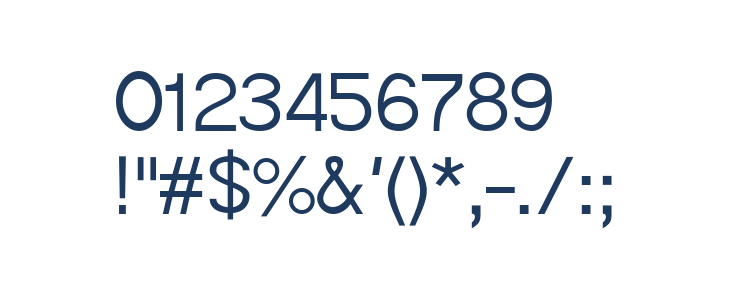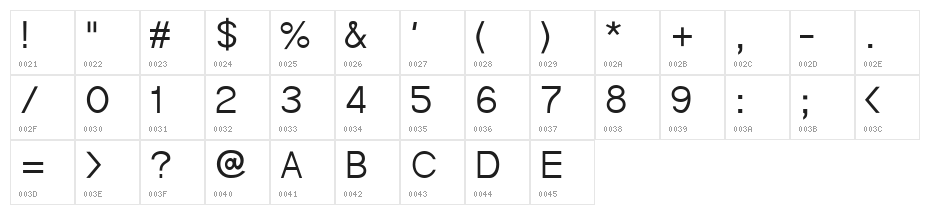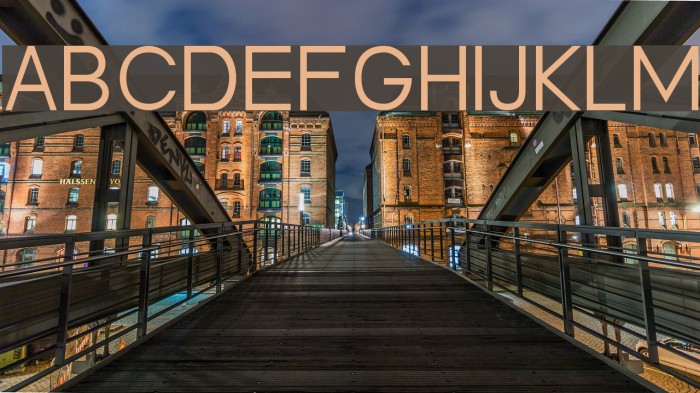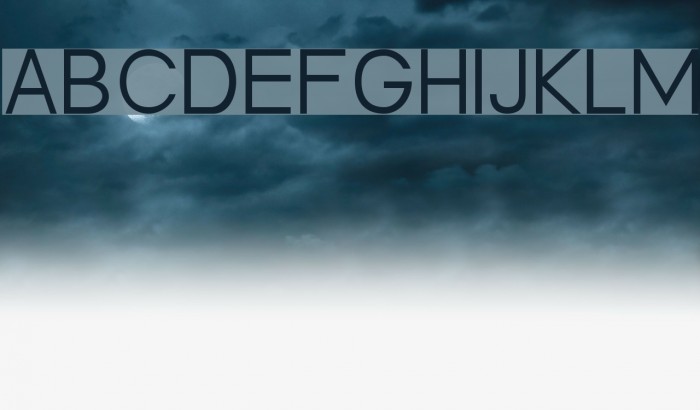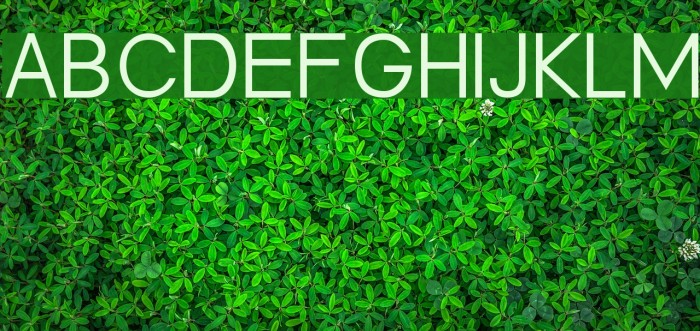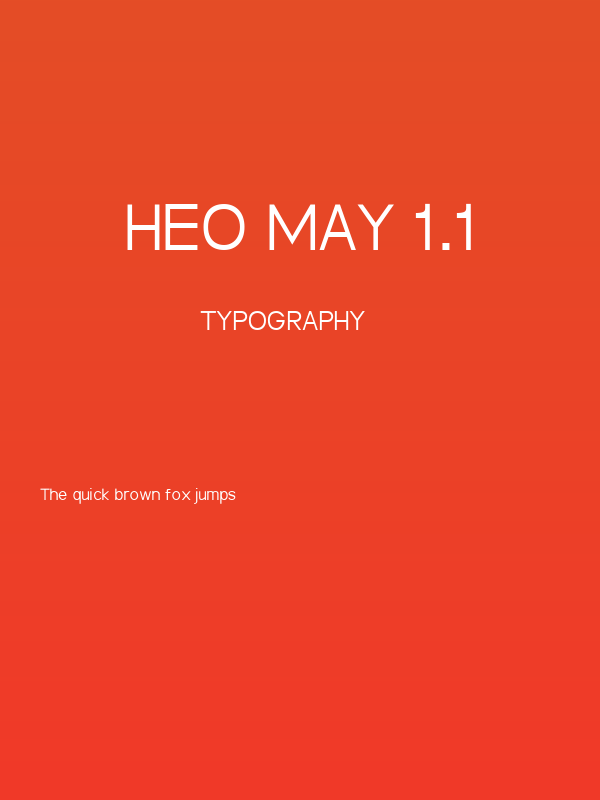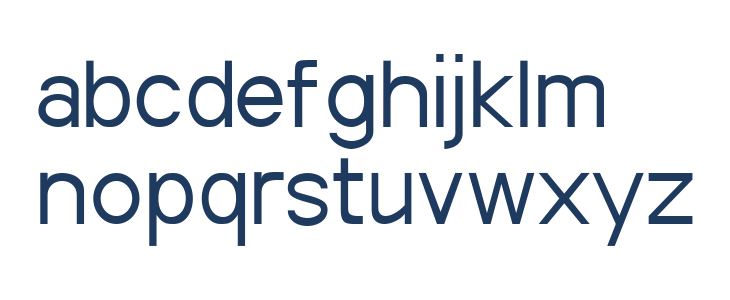
Heo May 1.1 Font
Heo May 1.1 Description
This font features a clean and modern sans-serif design with a geometric structure. The characters are evenly spaced, providing a balanced and harmonious appearance. The uppercase letters are bold and assertive, while the lowercase letters maintain a consistent height, enhancing readability. The numerals are clear and distinct, making them suitable for various applications. Special characters are well-defined, adding versatility to the font. Overall, the font's simplicity and clarity make it ideal for contemporary design projects.